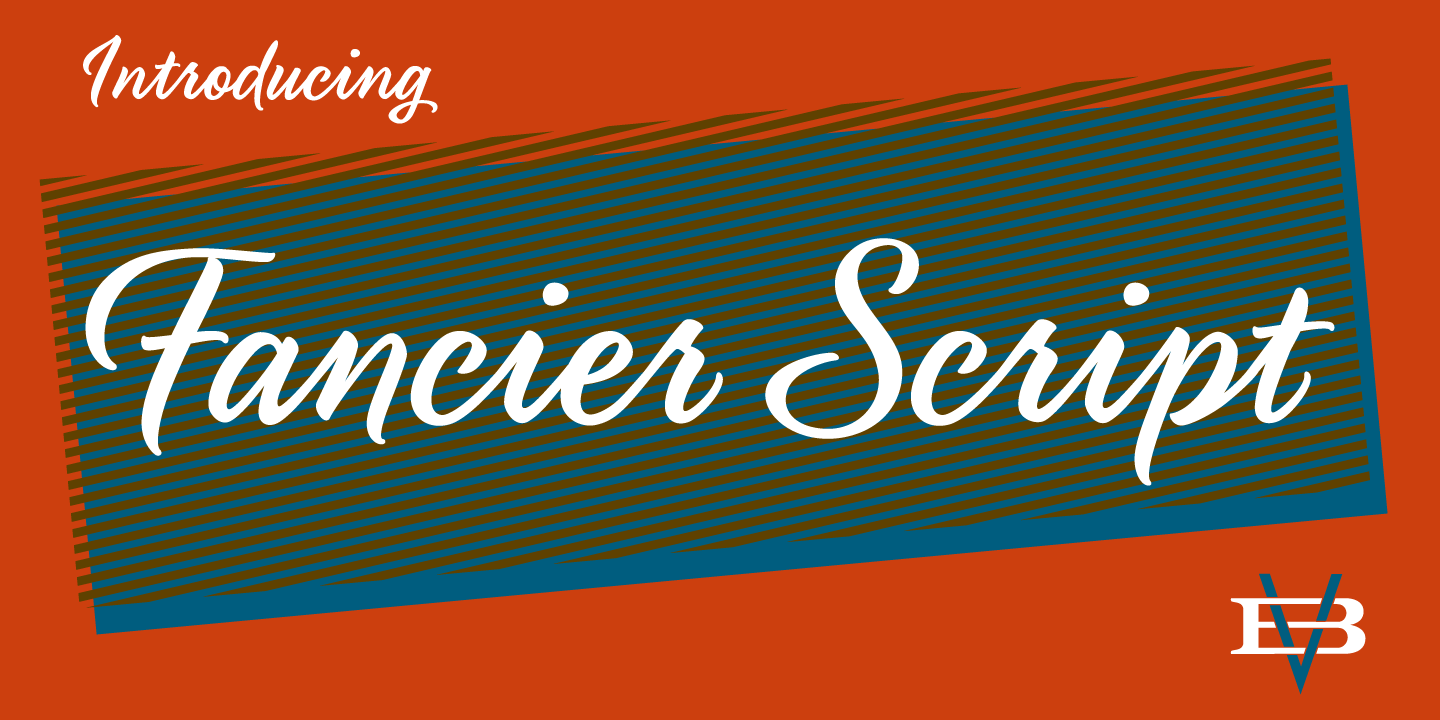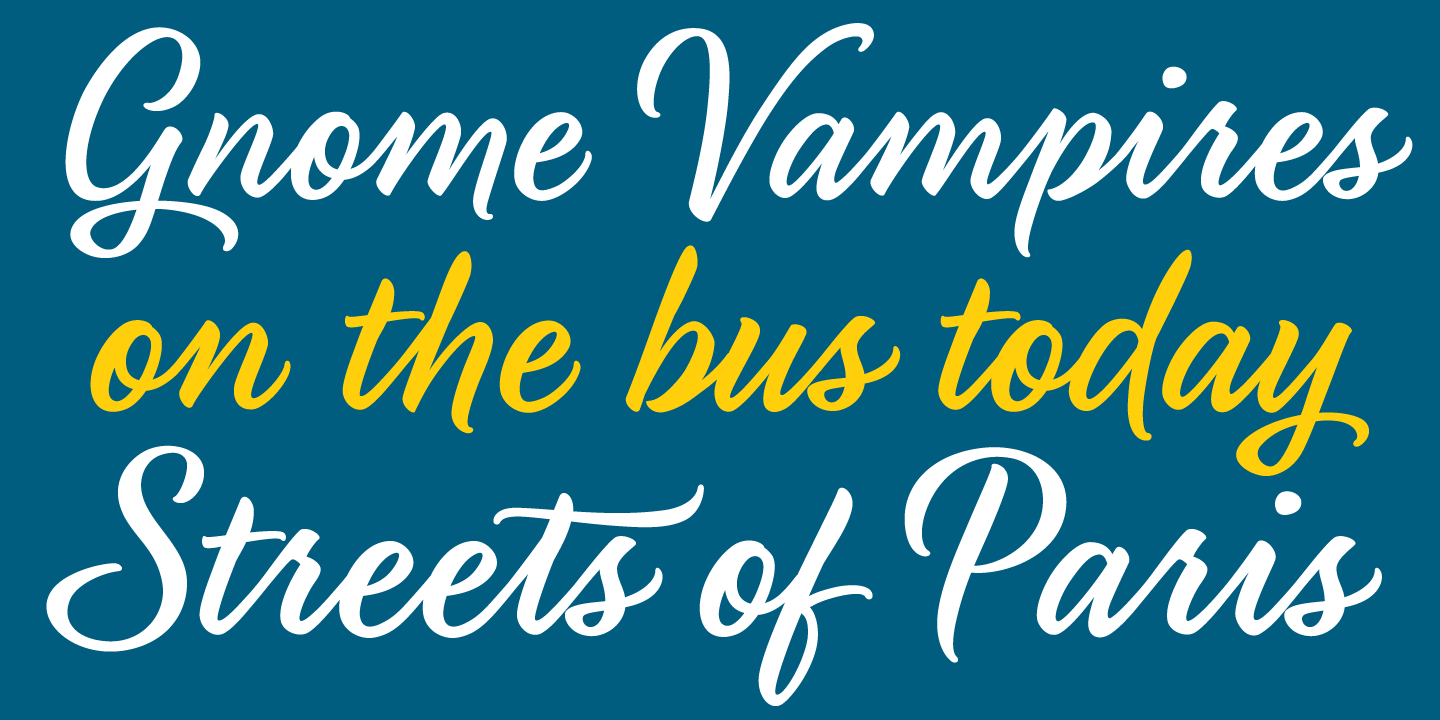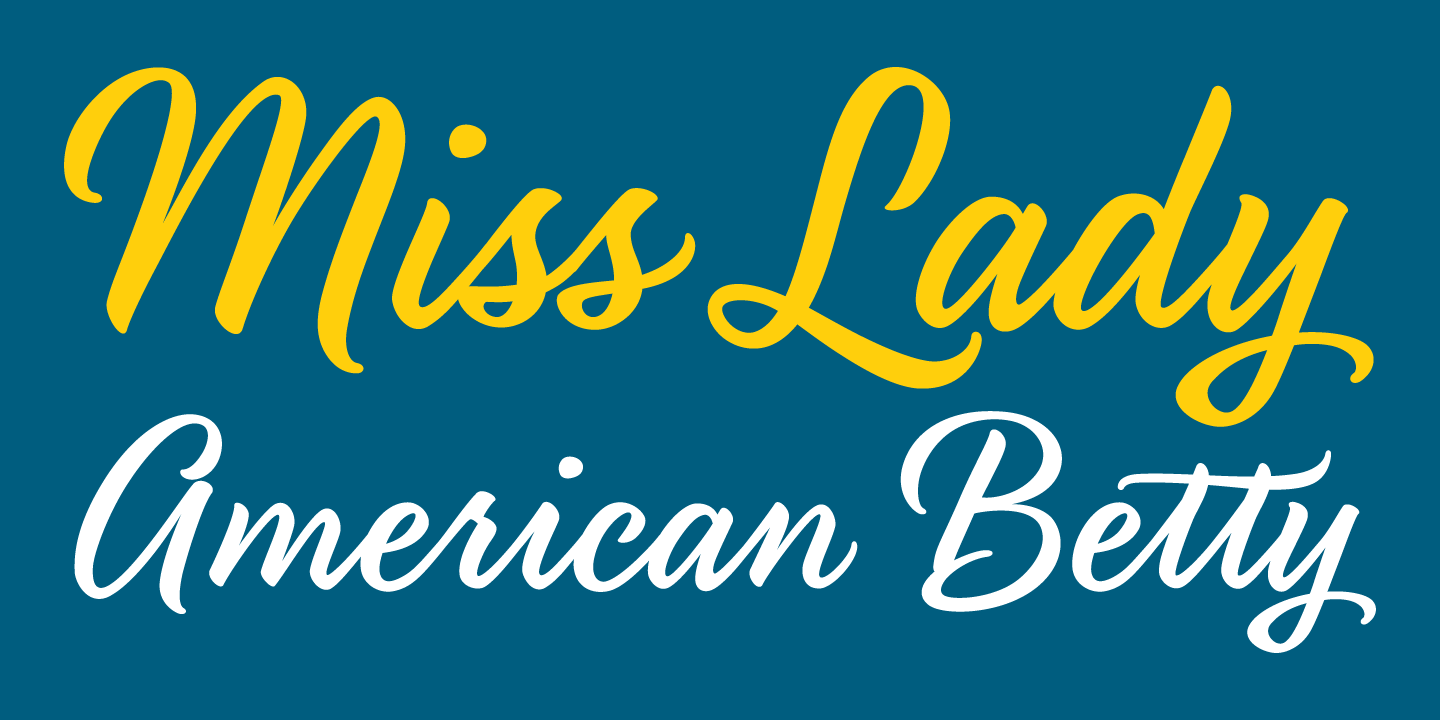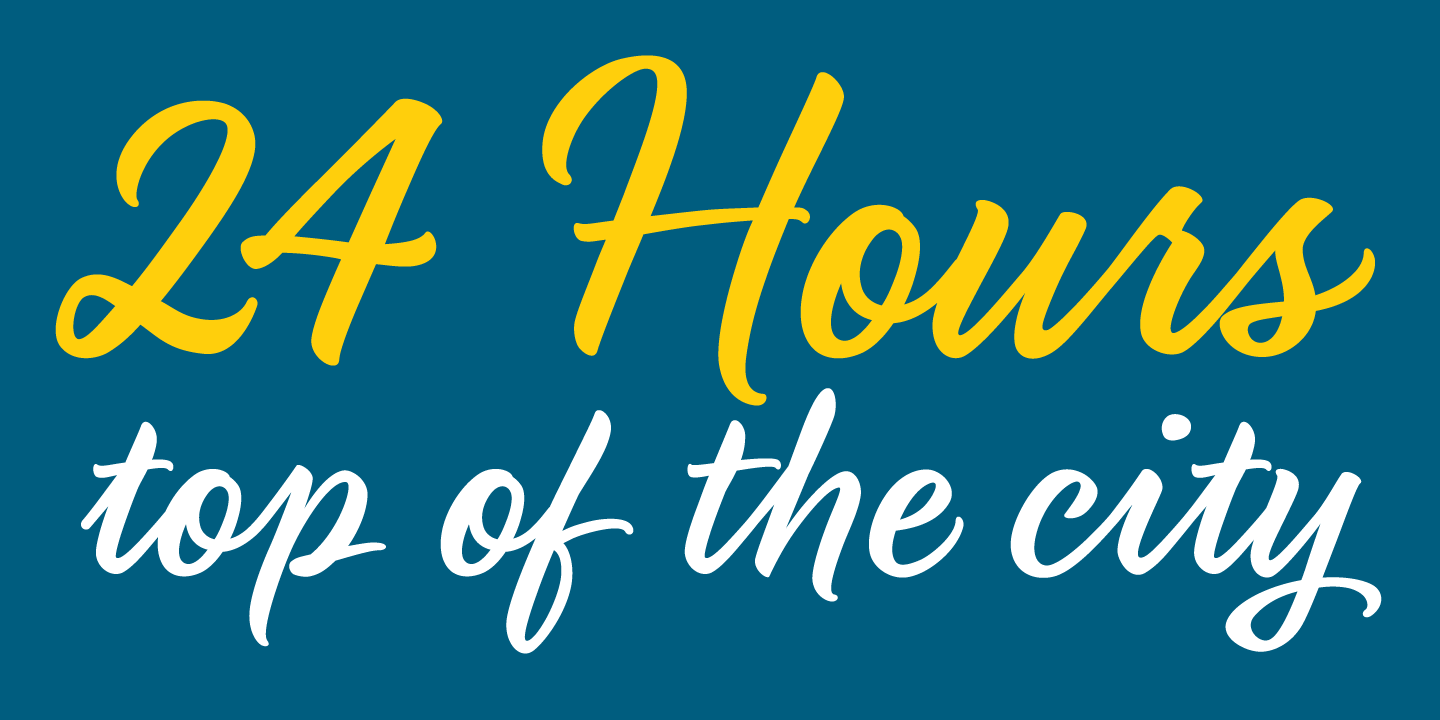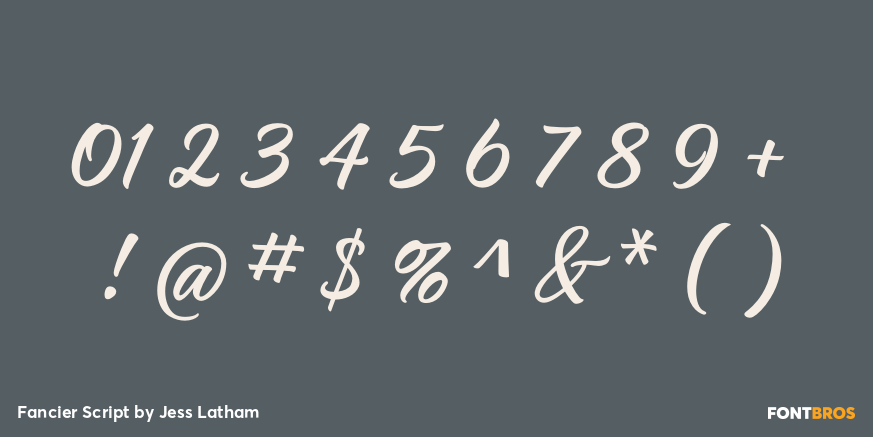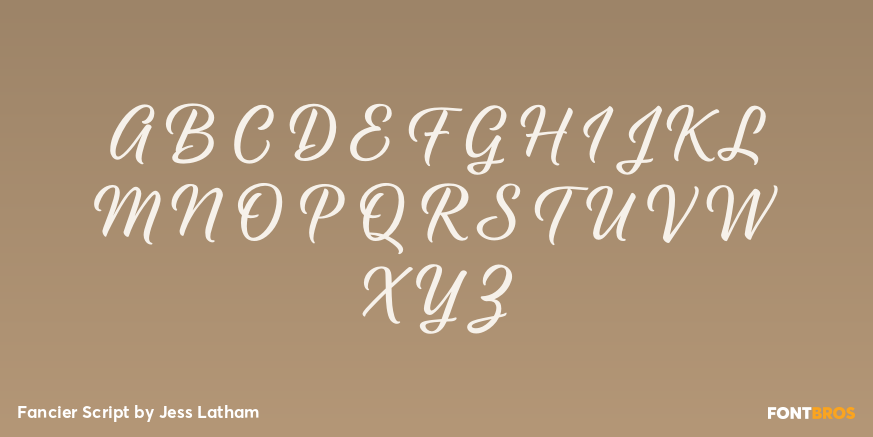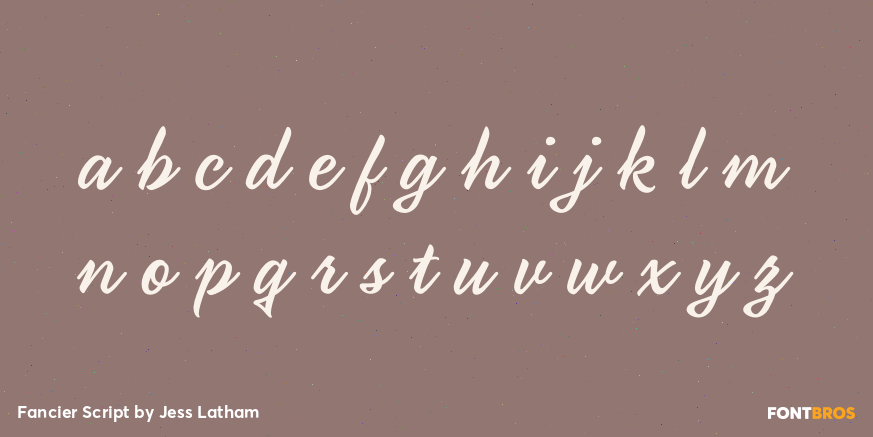
Fancier Script
Font Family by Jess Latham
Inspired by sign painters of the past, Fancier Script is a bold and highly customizable script face. With all the OpenType features turned on, watch the letters instantly customize as you type.